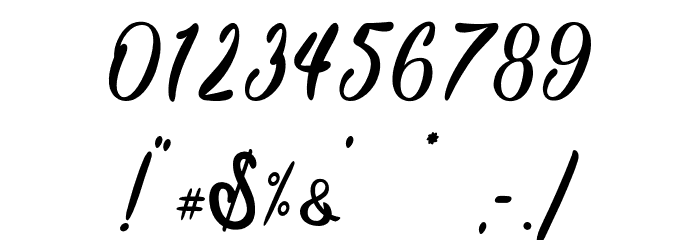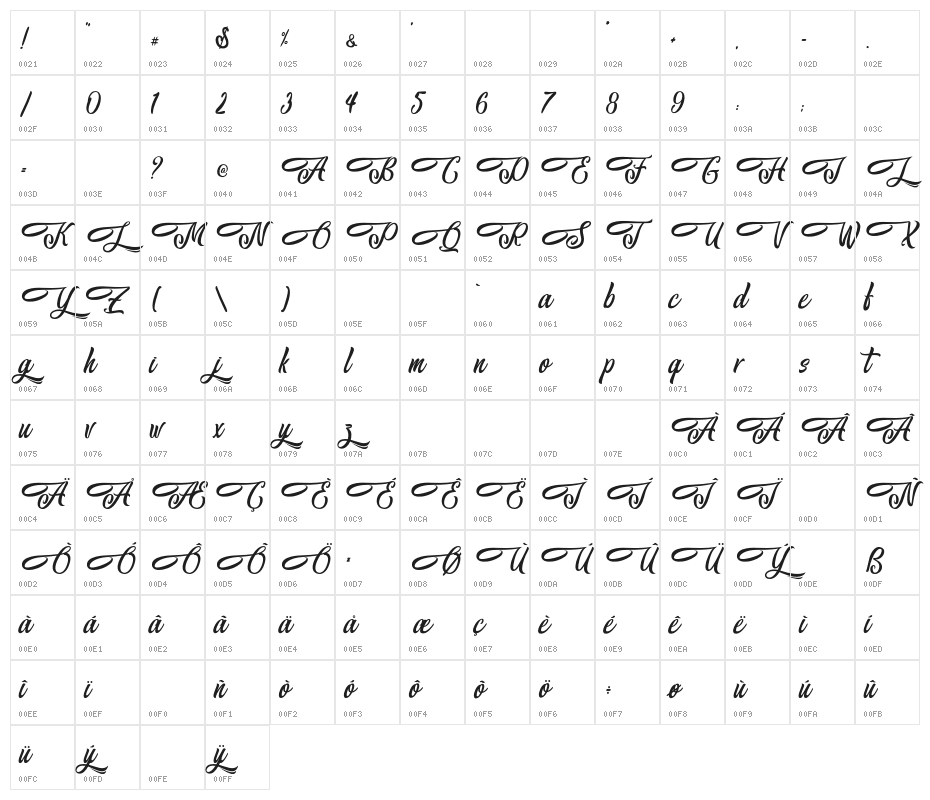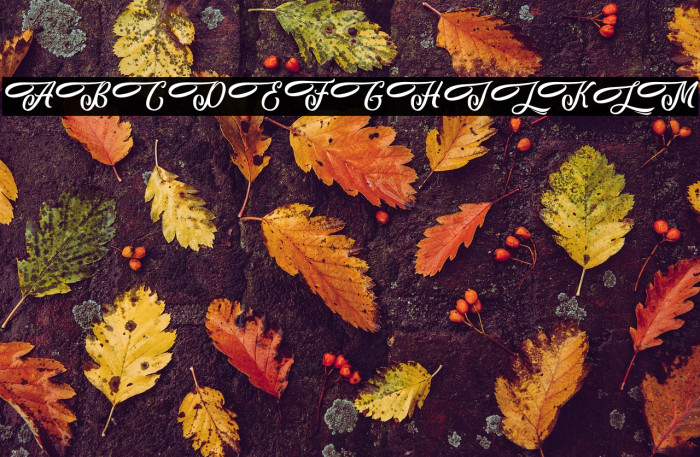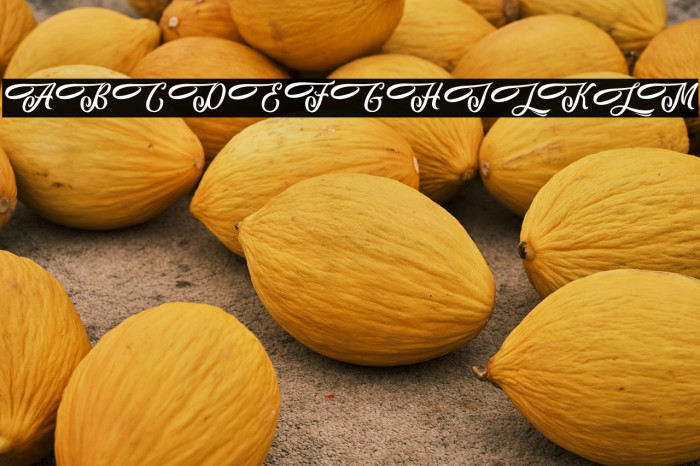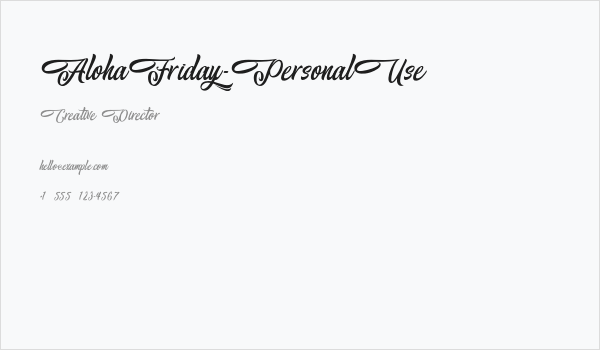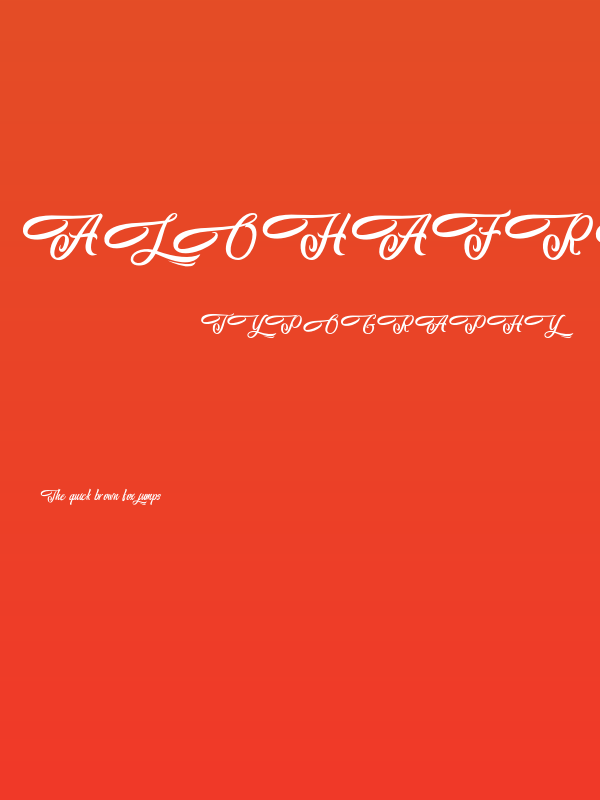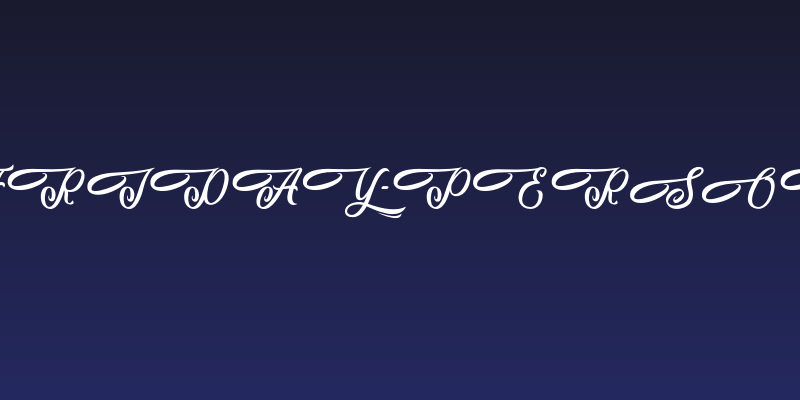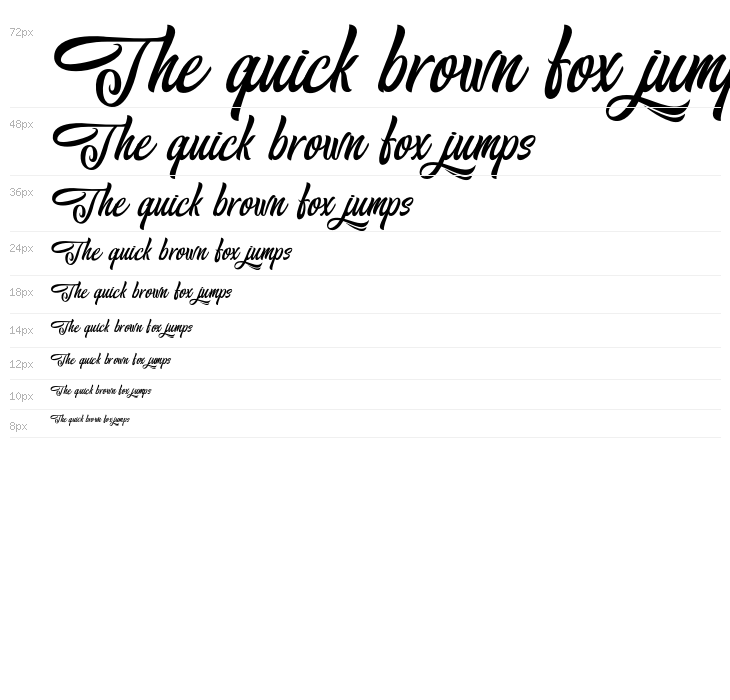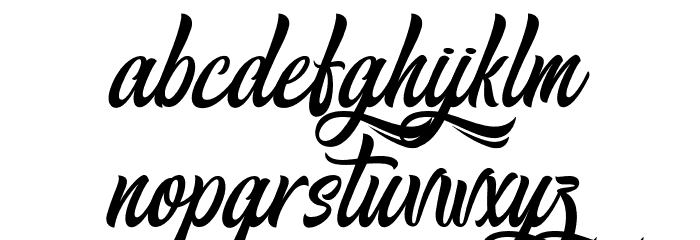
AlohaFriday-PersonalUse Font
AlohaFriday-PersonalUse Description
This font features an elegant and flowing script style, characterized by its smooth, cursive letterforms. The uppercase letters are ornate with intricate swirls and loops, giving them a decorative flair. The lowercase letters maintain a consistent flow, with some characters extending below the baseline, adding to the font's graceful appearance. The numerals are bold and slightly slanted, matching the overall script style. Special characters are designed with similar embellishments, ensuring a cohesive look across all glyphs. This font exudes a sense of sophistication and is ideal for projects that require a touch of elegance.